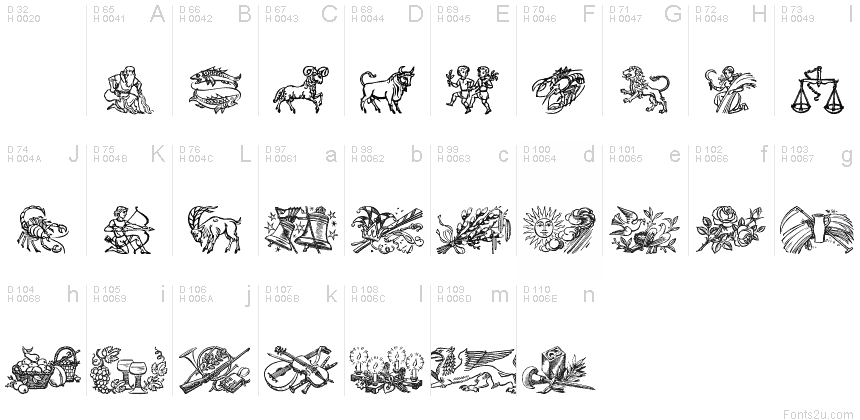
Jahreskreis
Jahreskreis, a captivating dingbats font designed by Dieter Steffmann of Typographer Mediengestaltung, exudes a distinct and whimsical charm. Its intricate, organic patterns evoke a sense of natural rhythms and the cyclical progression of the seasons. The diverse array of symbols, from delicate floral motifs to abstract geometric shapes, offers a versatile palette for designers seeking to infuse their projects with a touch of enchantment.
This font's versatility extends across a wide range of applications, from editorial layouts and packaging design to greeting cards and stationery. Its ability to seamlessly blend artistic expression with functional elements makes it a valuable asset in the hands of creative professionals. Jahreskreis' unique aesthetic can elevate the visual appeal of any design, imbuing it with a touch of timeless elegance and a sense of wonder.